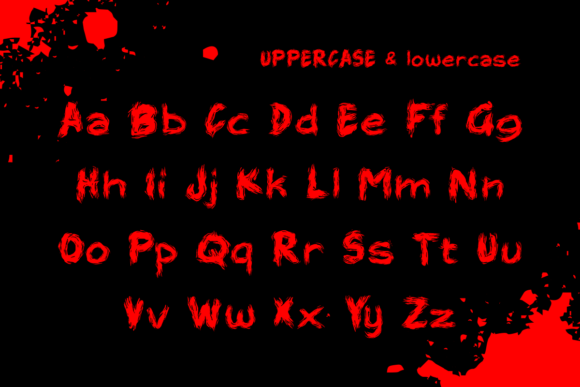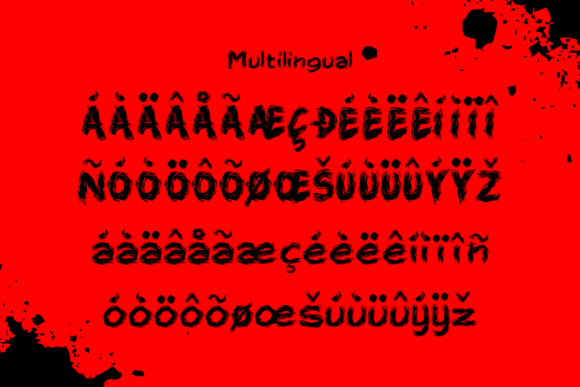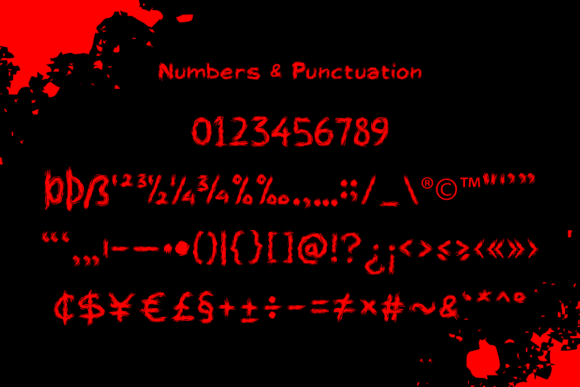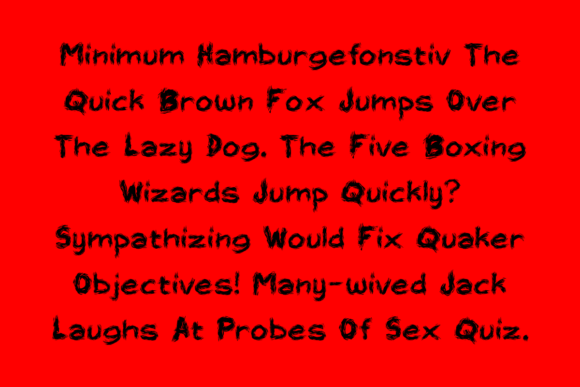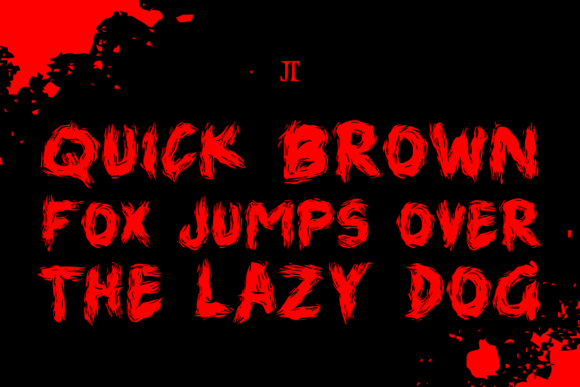
Introduction to Burnart Font
Burnart is a bold chaotic display font designed to break the rules and stand out instantly.
With its rough, distorted strokes and expressive letterforms, this typeface captures raw energy, rebellion, and artistic freedom Perfect for eye-catching headlines, posters, album covers, streetwear branding, and experimental design projects.